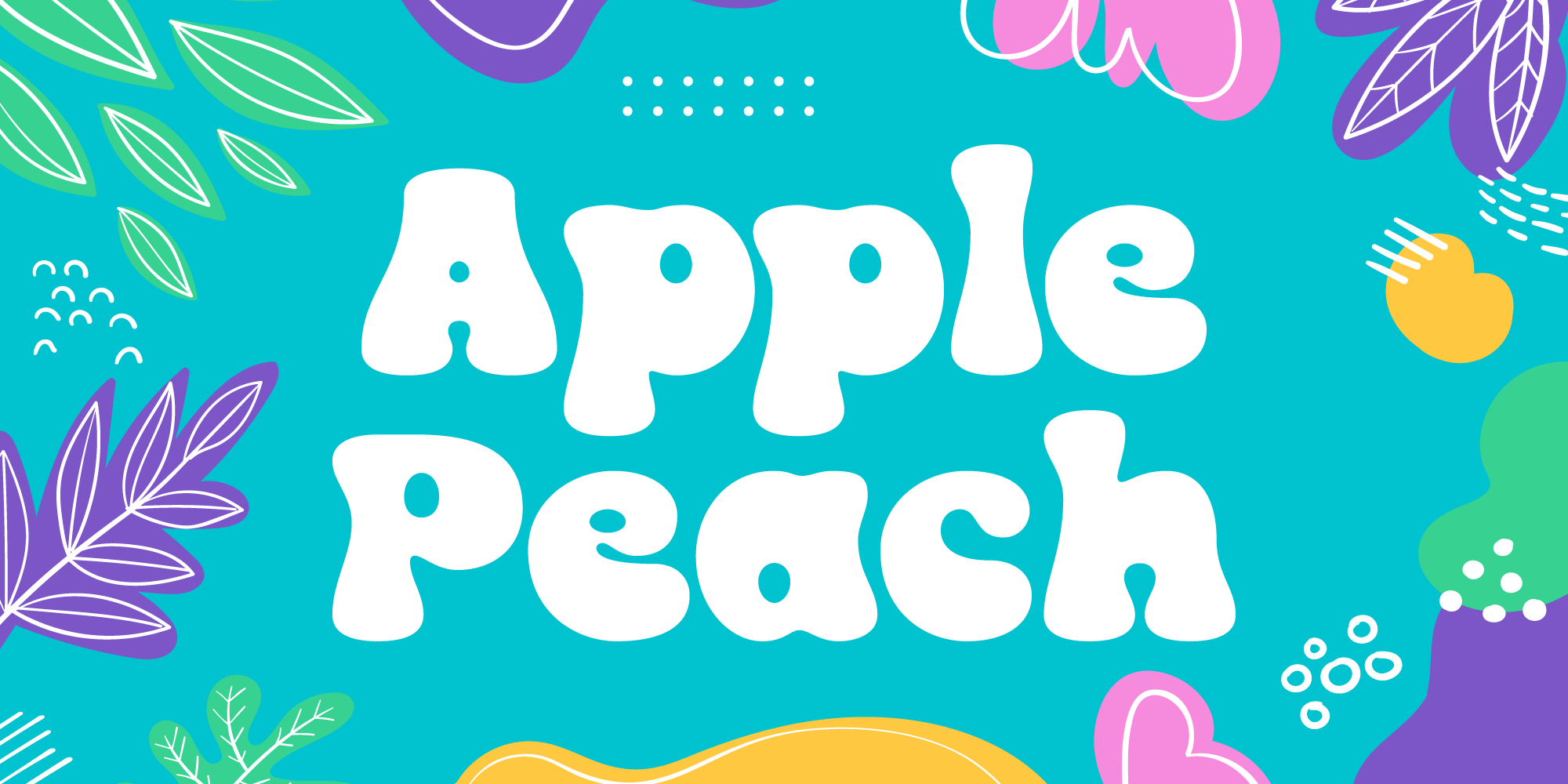
Apple Peach Font is perfect for various applications including children's book titles, fruit farm branding, organic juice labels, farmers market signage, healthy food packaging, nursery wall art, kids' clothing brands, fruit delivery services, family restaurant menus, and wholesome lifestyle campaigns.
What makes Apple Peach Font so exciting is its delightful ability to capture the fresh, wholesome charm of nature's sweetest offerings. This cheerful typeface features playful, rounded letterforms with gentle curves and friendly details that evoke the warmth of summer orchards and the simple joy of fresh fruit. The font's approachable character and naturally sweet aesthetic make it ideal for brands that want to convey freshness, health, and family-friendly values to audiences who appreciate organic living, natural products, and wholesome experiences.
Apple Peach Font family includes multiple weights and styles: Light, Regular, Medium, Bold, Rounded, Condensed, Extended, Playful, and charming Italic variants. Each family member maintains the font's signature sweetness while offering different levels of visual impact and stylistic flexibility for diverse family-oriented and natural product applications.
The Apple Peach Font Free Download provides designers with access to a nature-inspired typeface that excels in family and health-conscious markets. Whether you're creating organic brand identities, designing children's educational materials, or developing farm-fresh marketing campaigns, this font delivers the wholesome aesthetic needed to connect with health-minded families. Its friendly styling and natural essence make it particularly effective for organic food companies, children's products, and family-oriented businesses.
Typography specialists will recognize the careful balance between playfulness and readability in Apple Peach Font's construction. The font features naturally rounded letterforms with gentle curves, optimized spacing, and perfectly balanced proportions that ensure excellent legibility while maintaining its cheerful character. From children's book pages to family-friendly packaging, this typeface maintains its warmth and natural appeal across all design contexts.
For family-focused web designers, Apple Peach Font provides outstanding performance in wholesome digital environments and educational platforms. The font's technical specifications are optimized for child-friendly interfaces while preserving the soft, welcoming edges that define its natural character. Its versatility makes it suitable for both educational content and family entertainment experiences.
Creative professionals working in food, education, children's products, and family services will find Apple Peach Font to be an essential tool for projects requiring warm visual communication. The font's ability to convey trust, health, and family values makes it invaluable for brands targeting parents and health-conscious consumers.